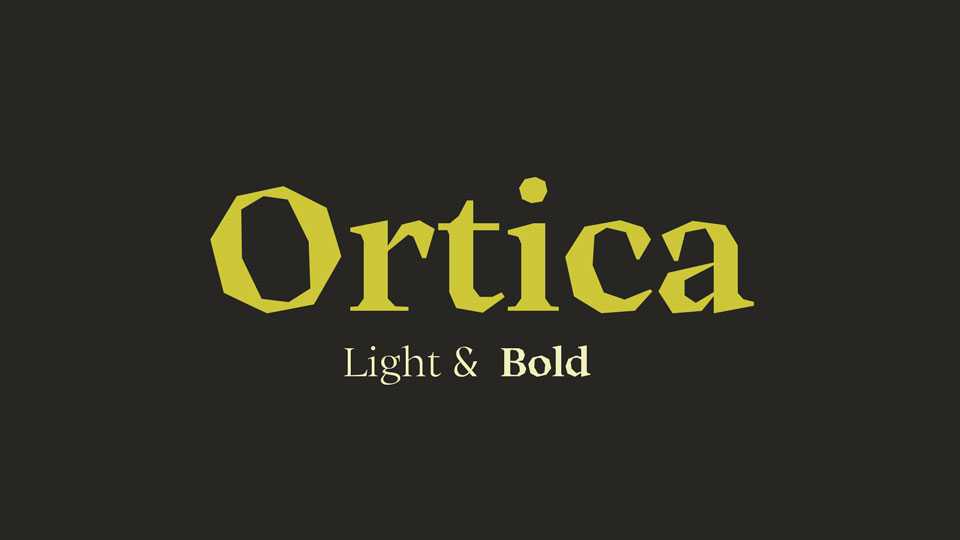
Download Ortica typeface, a calligraphic serif font family with two contrasting but matching personalities. Ortica fully shows its construction and character; in smaller sizes it still keeps its elegance and functionality.
Designer: Collletttivo